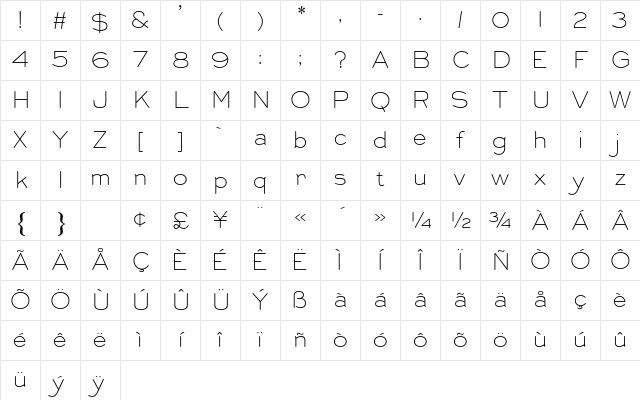
Complete Burin Sans AT Regular glyph index. Displaying only characters natively supported by Burin Sans AT Regular font.
Burin Sans AT is a composed and adaptable typeface that performs quietly and consistently across a wide range of design contexts.